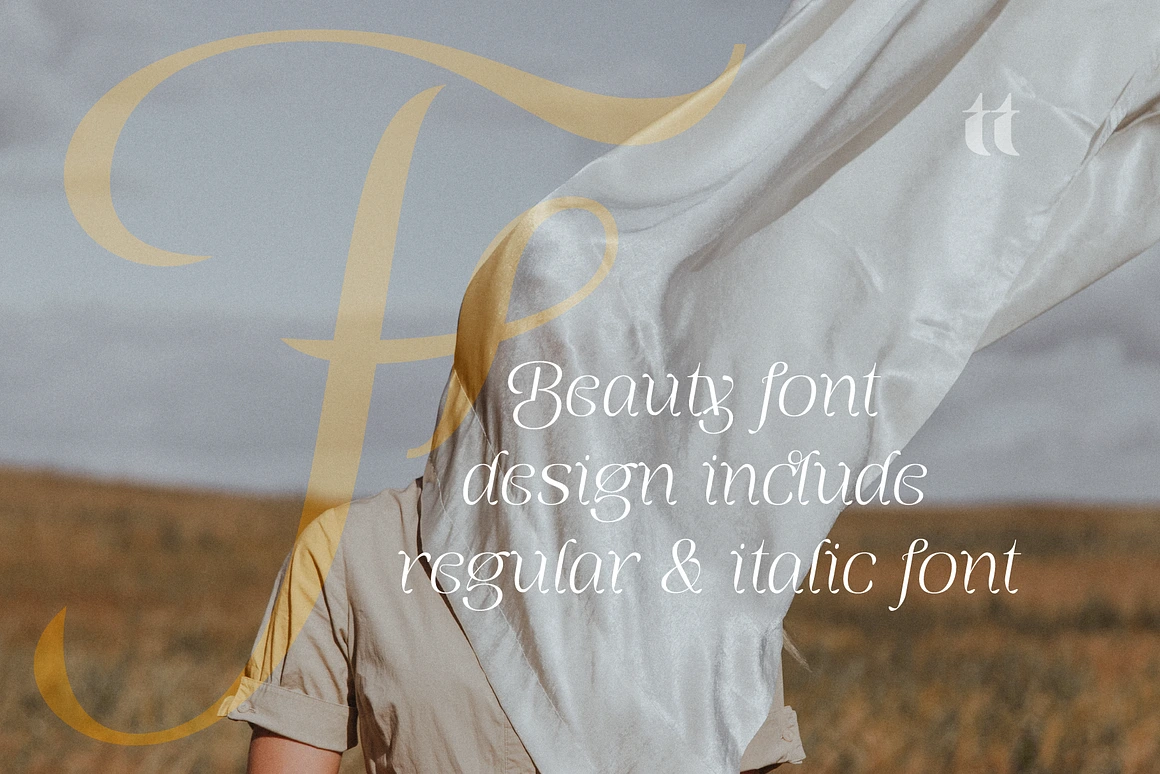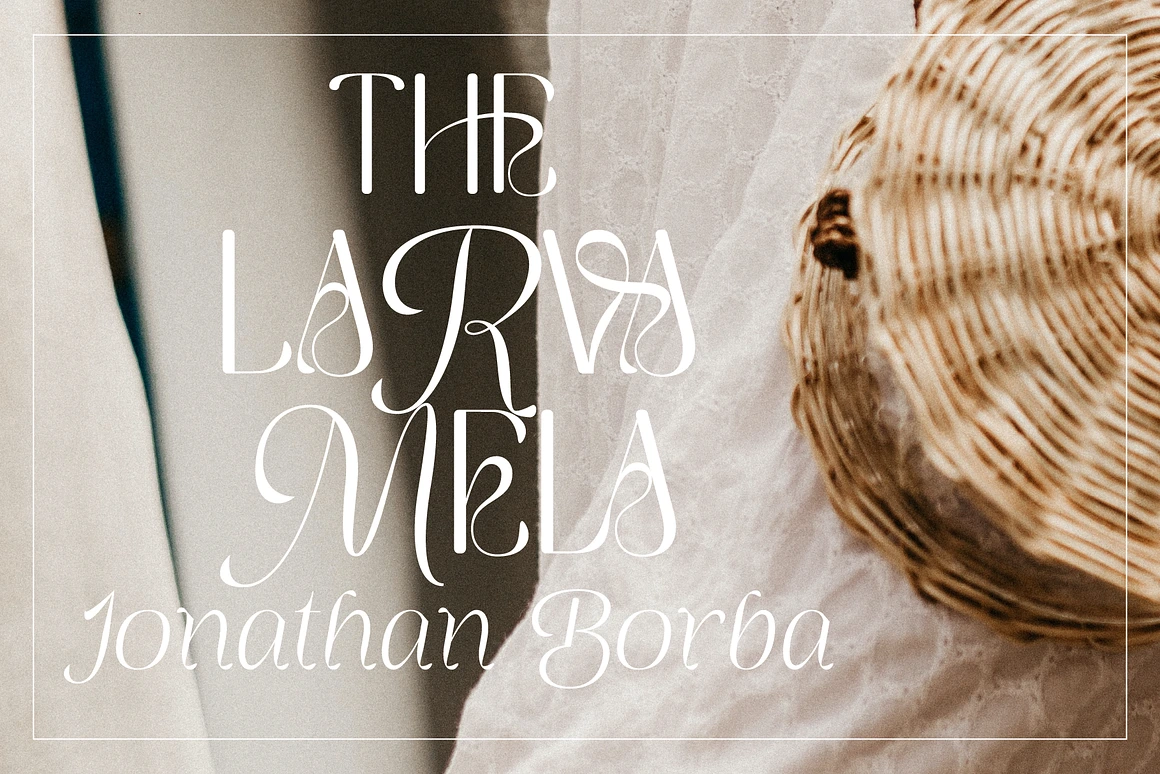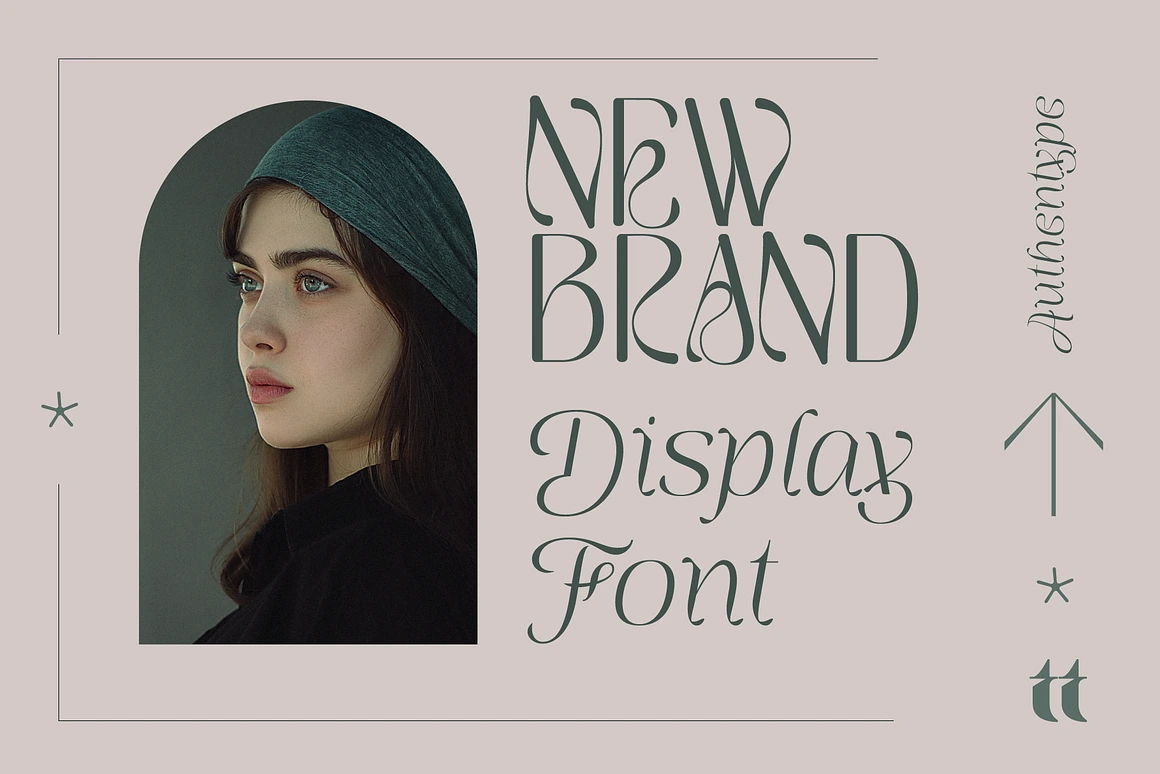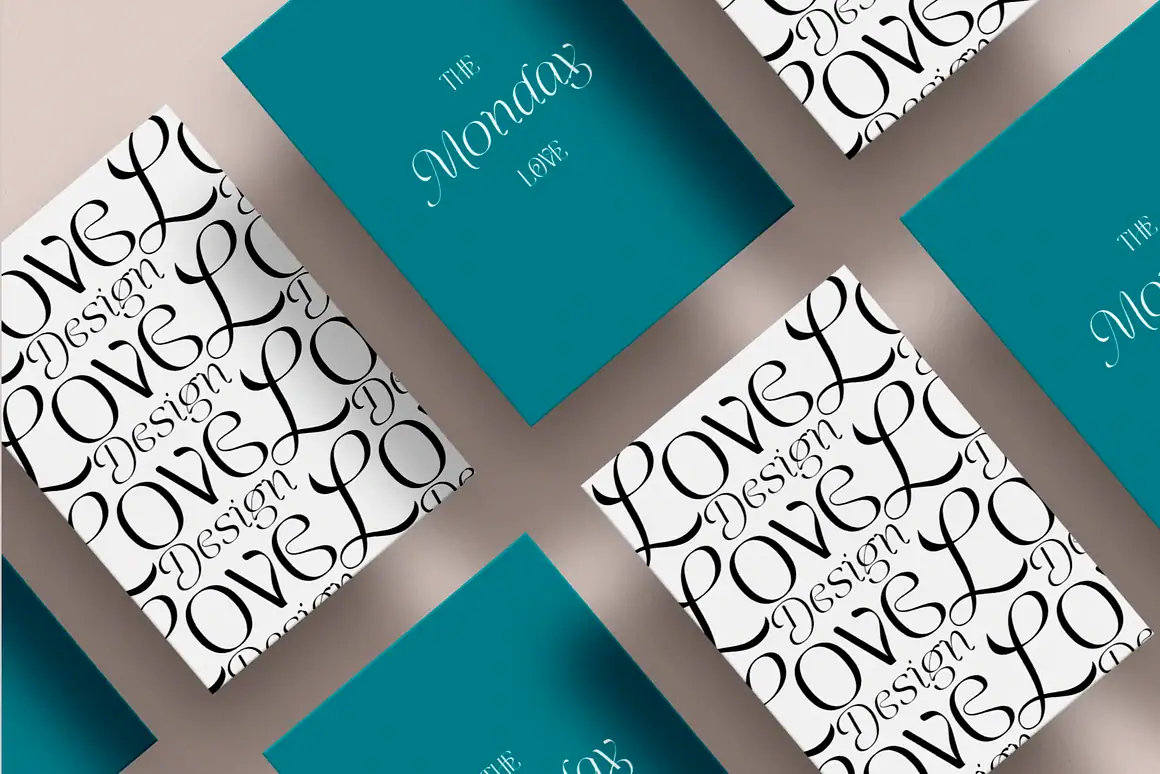
Farm Wave – Elegant Beauty Font
Farm Wave Complete Family
Italic
Farm Wave is a stylish beauty font that blends modern elegance with handcrafted charm. Designed with smooth curves and natural strokes, this font is perfect for adding a refined and feminine touch to your creative projects.
This font pack includes Regular & Italic styles, giving you flexibility to create stunning typography. The Regular version offers a clean, classy look, while the Italic style adds movement and personality, making it ideal for highlights, quotes, or stylish branding.
Key Features:
* Elegant handwritten script style
* Smooth and modern letterforms
* Works great for both display & body text
* Pairs beauty with serif or sans-serif fonts
* Farm Wave Regular & Italic beauty font is your go-to choice if you’re looking for a modern calligraphy font that adds luxury and beauty to any design.